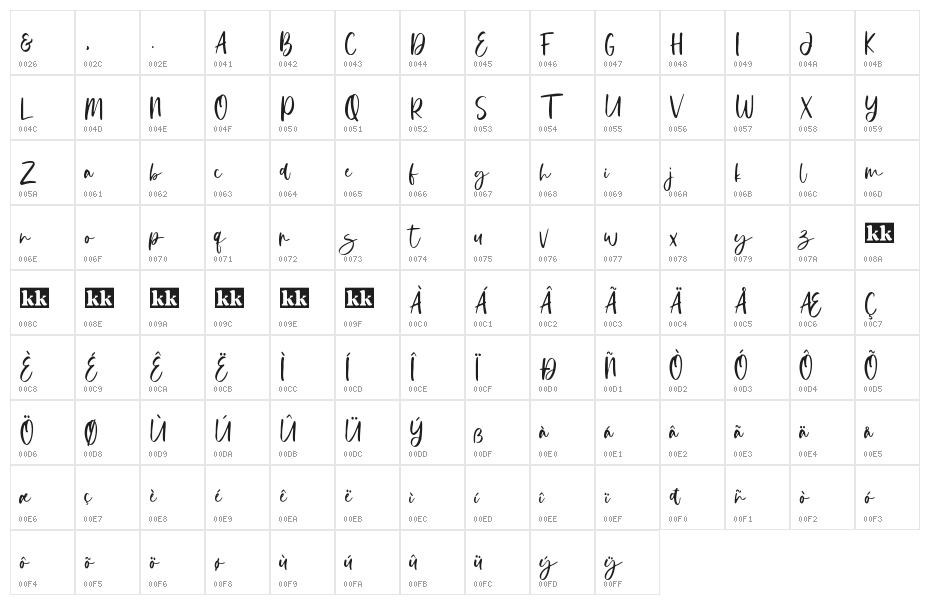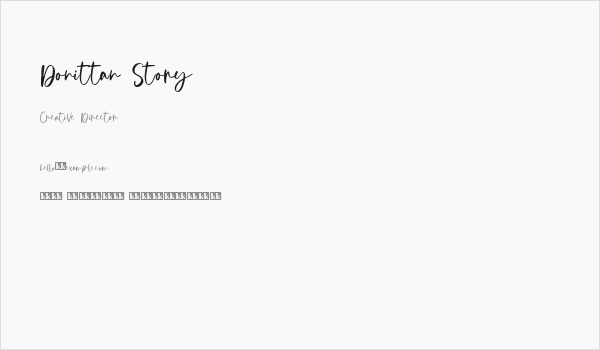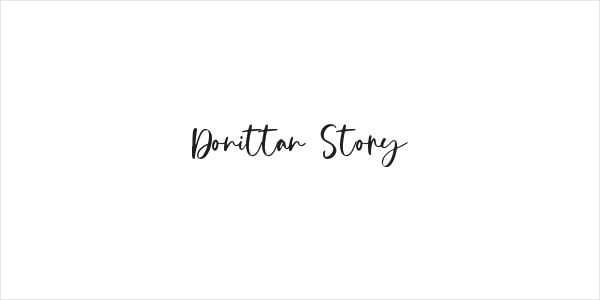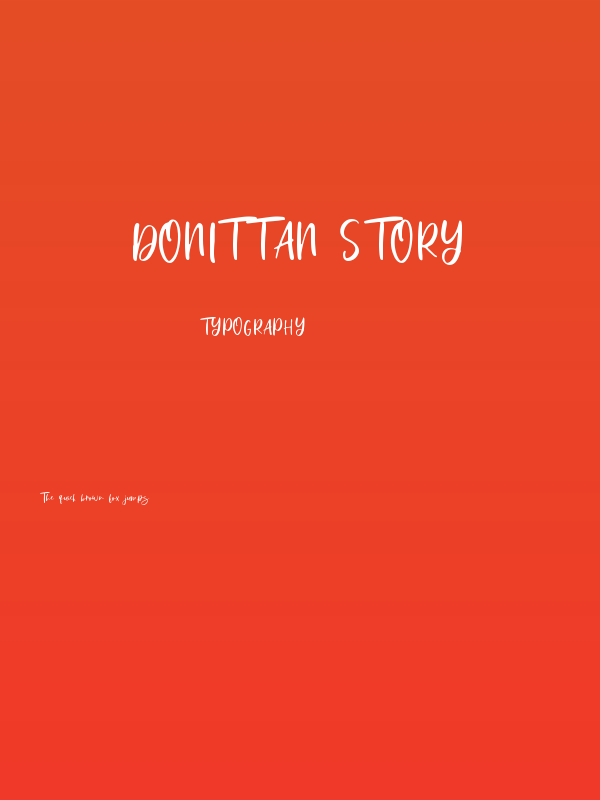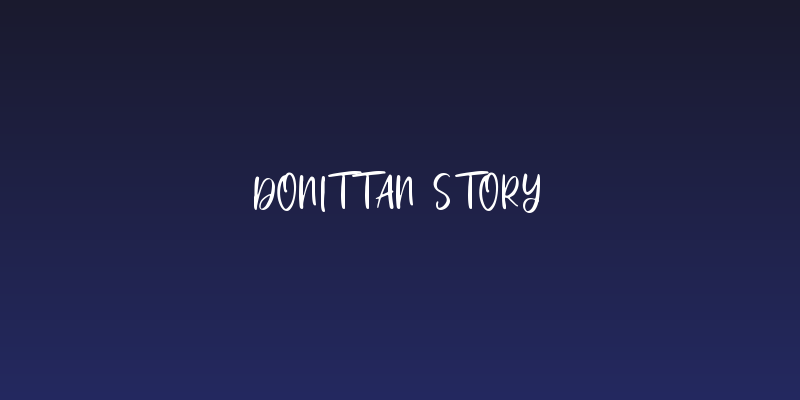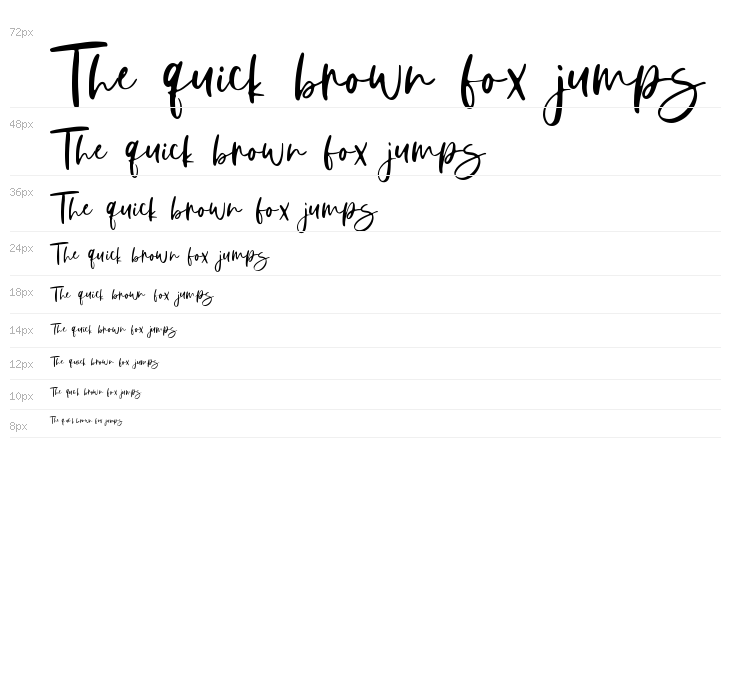
Donittan Story Font
Donittan Story Description
This font features a playful and artistic handwritten style, characterized by its fluid and dynamic strokes. The uppercase letters are bold and expressive, with a slight slant that adds to their casual charm. The lowercase letters maintain a consistent flow, with some letters exhibiting unique loops and curves that enhance the font's whimsical nature. The numbers and special characters are crafted with the same attention to detail, ensuring a cohesive look throughout. This font's overall appearance is both modern and approachable, making it suitable for a variety of creative projects.
| Proposed Projects | Ideal for greeting cards, invitations, branding projects, and social media graphics. |